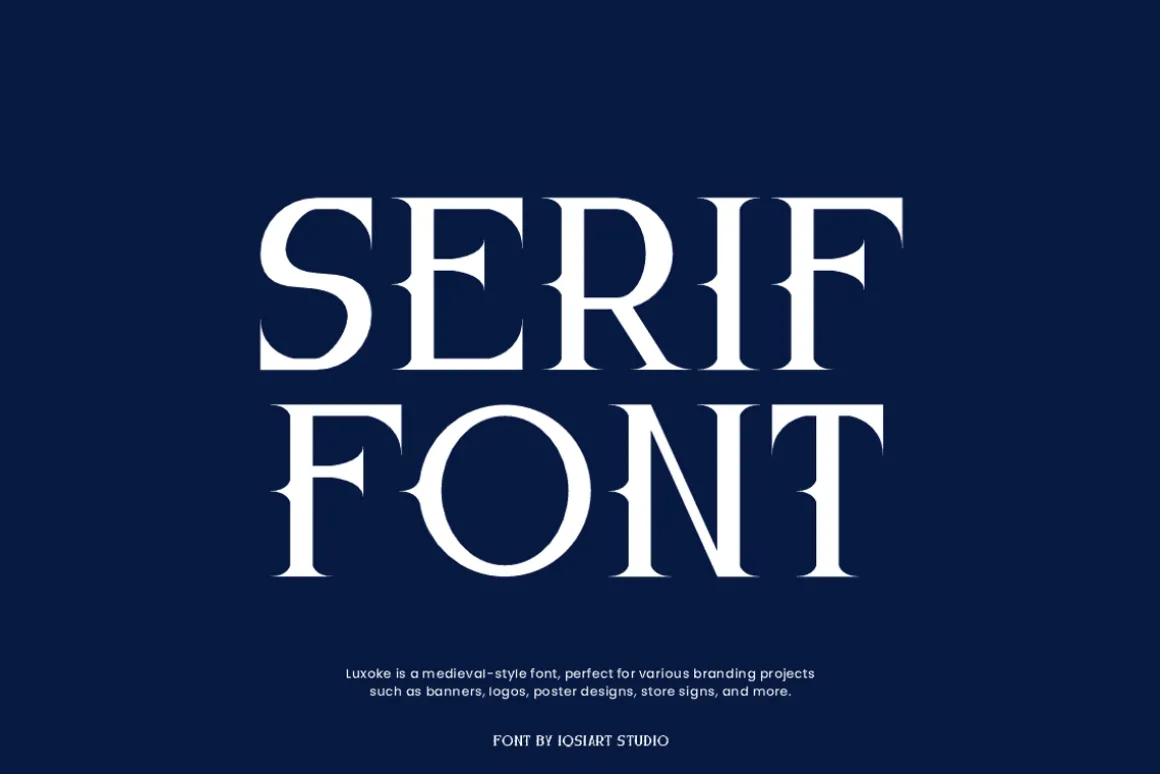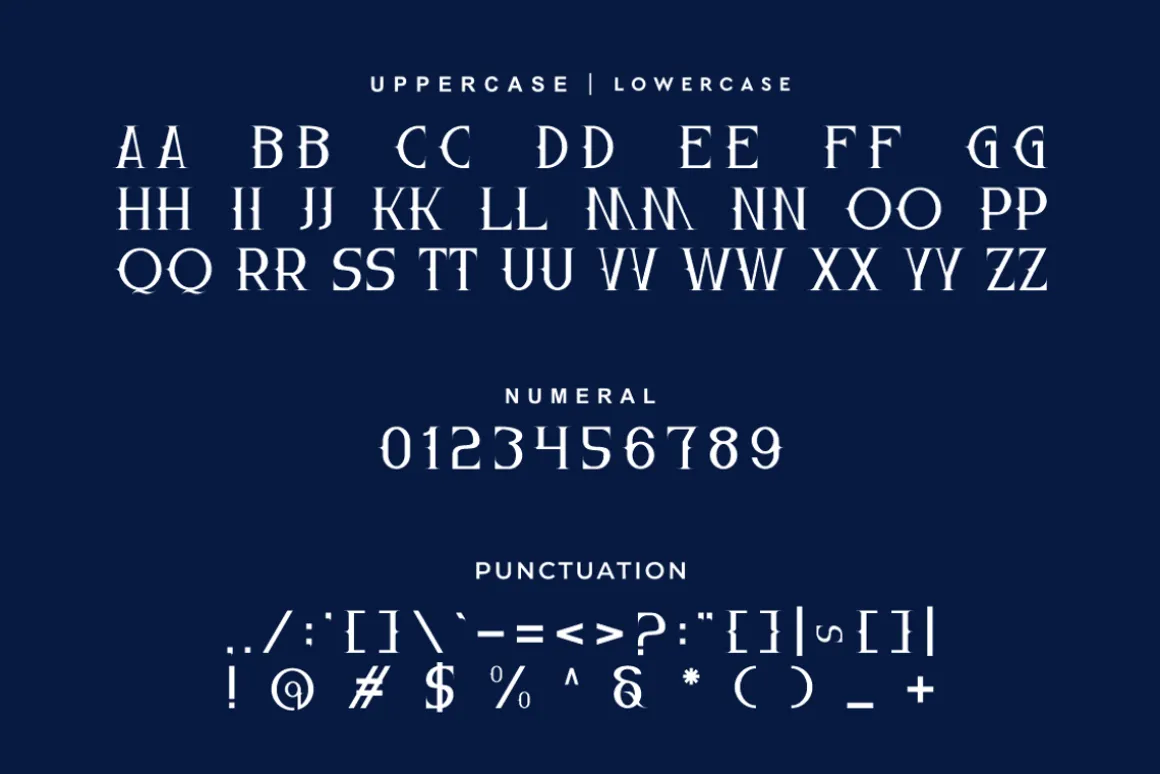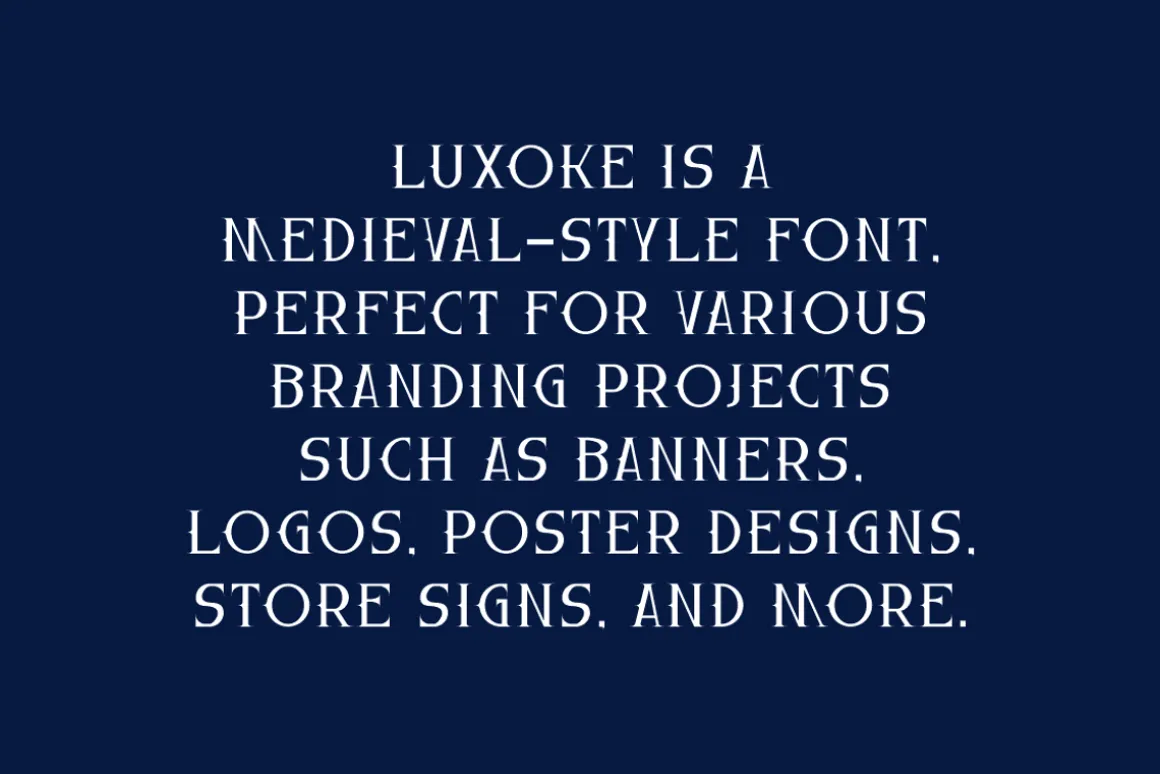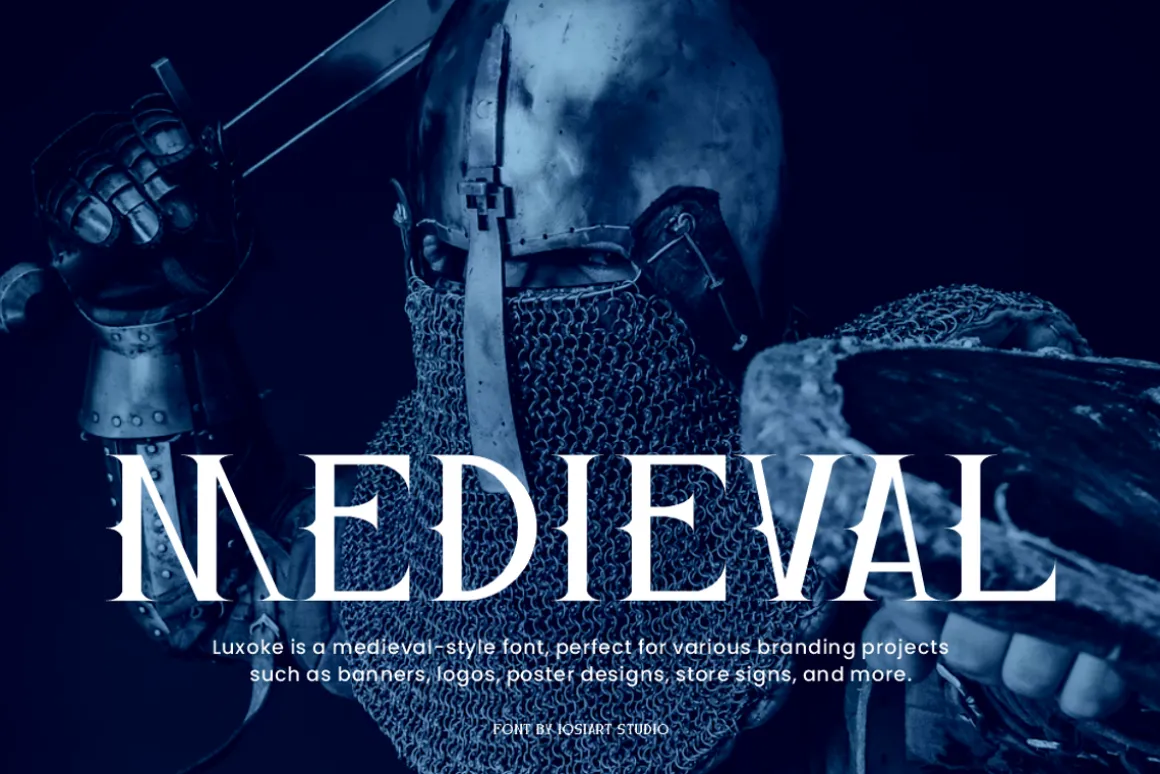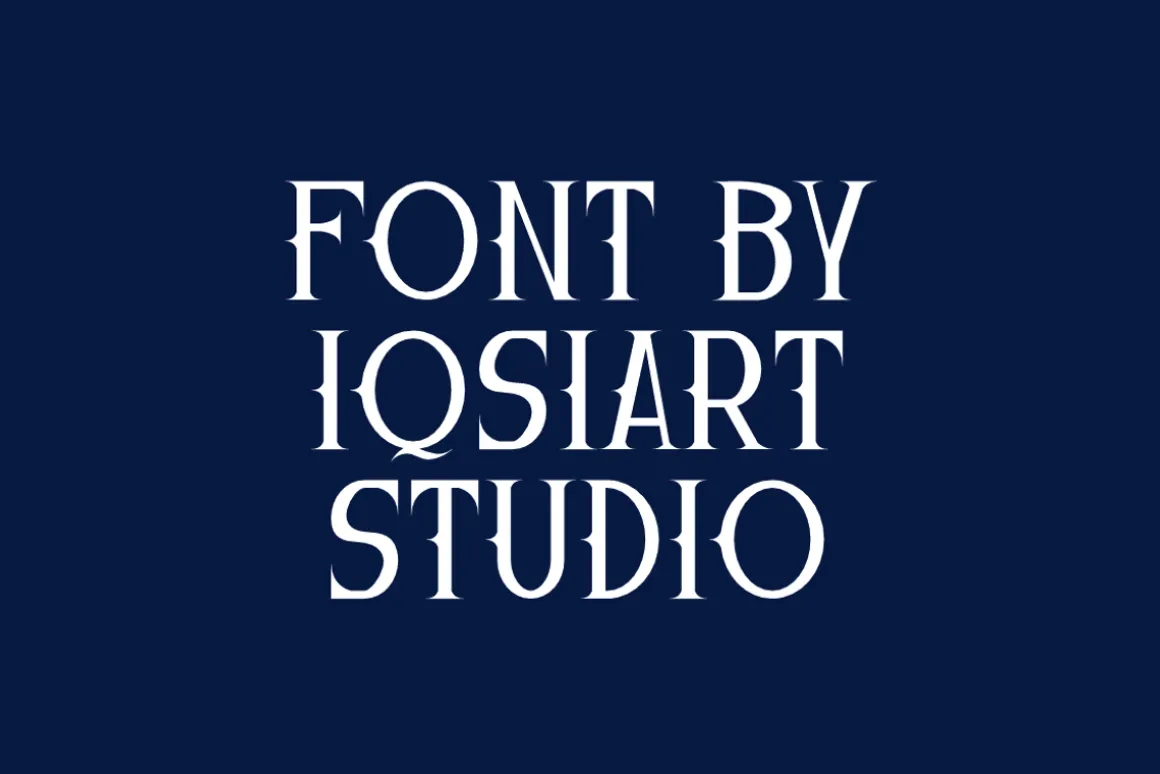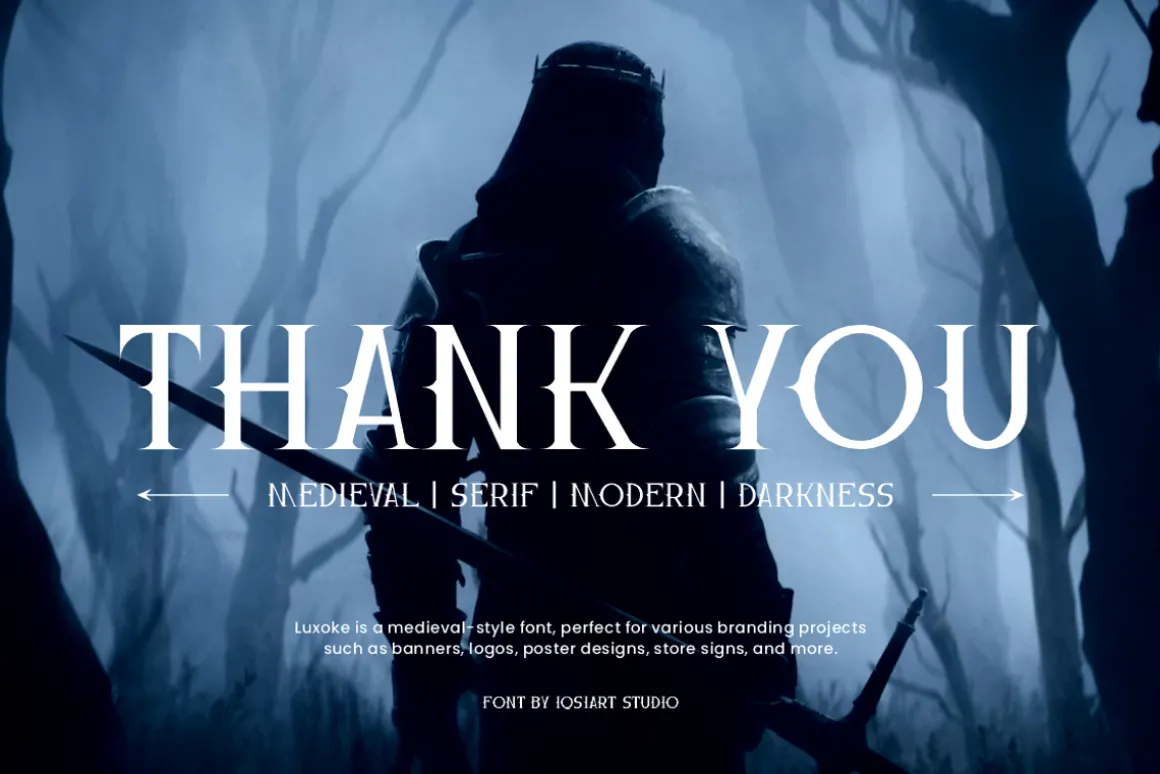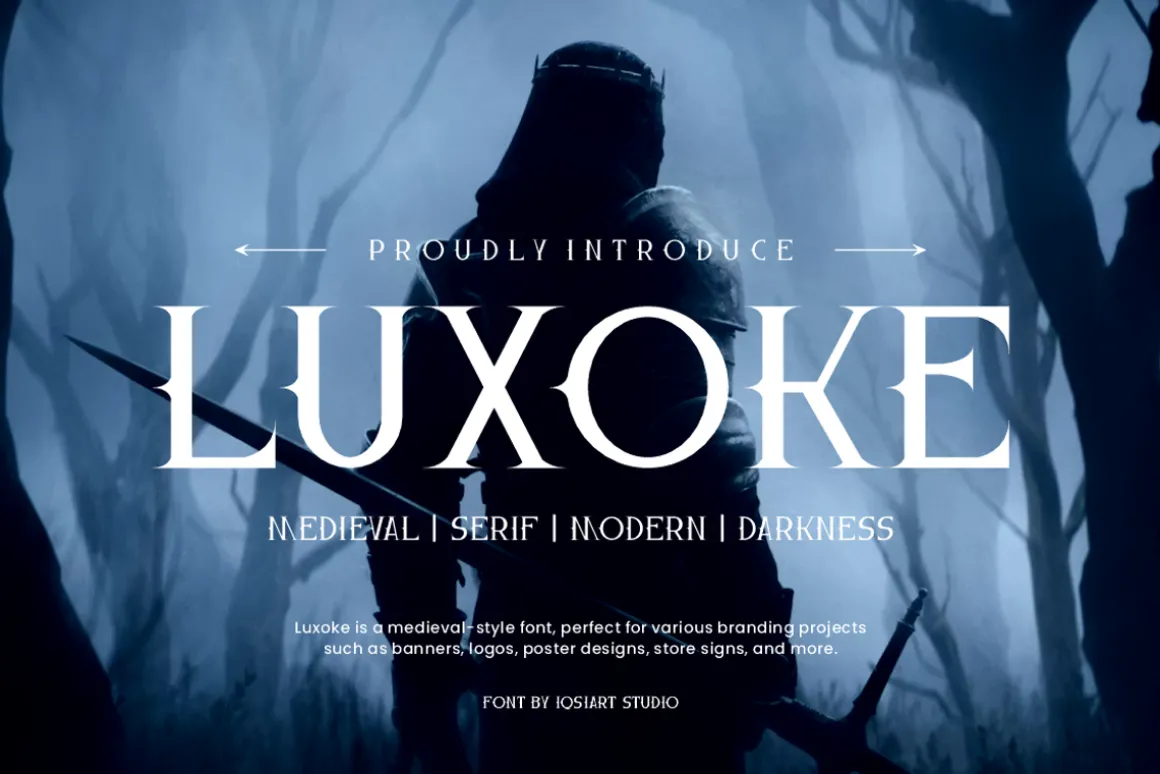
Luxoke Font is a medieval and authentic display typefacethat suits a variety of design needs. We offer a wide range of themesand font styles — visit our profile to explore more and find the perfect style for your project.